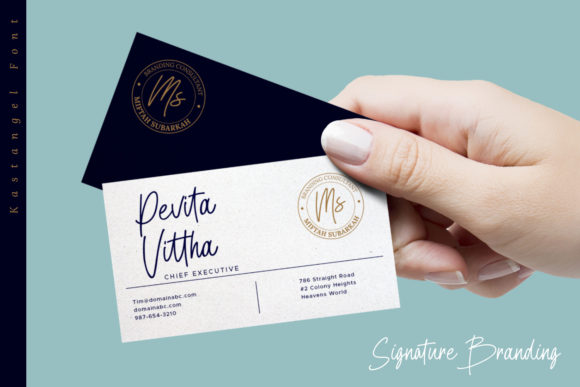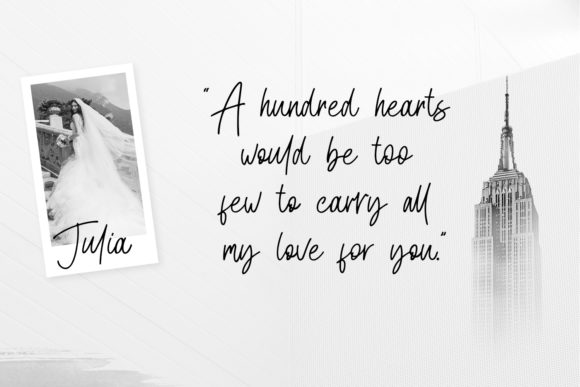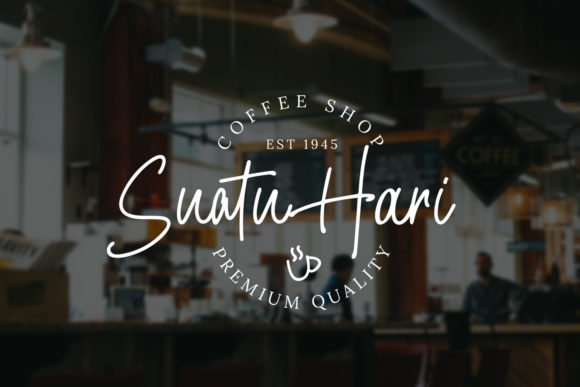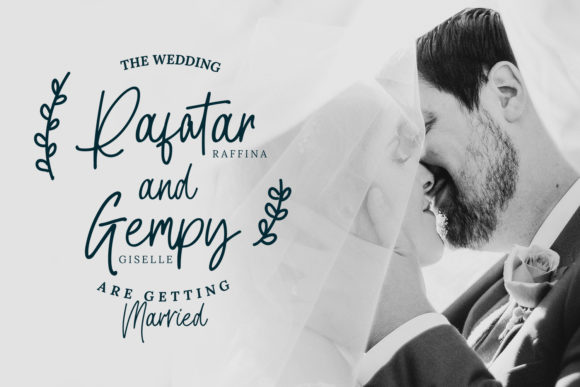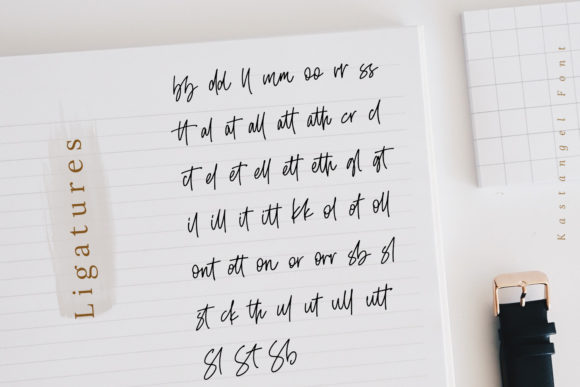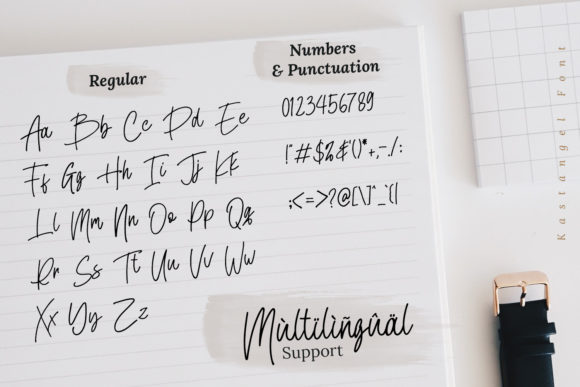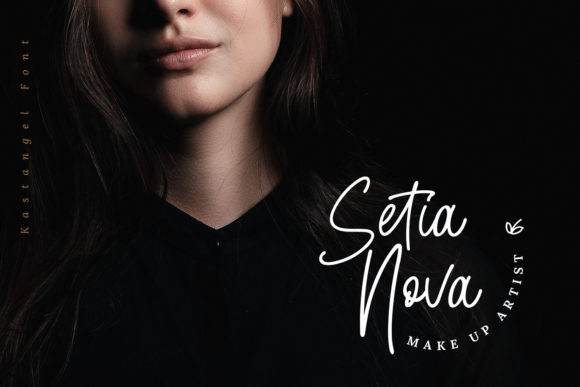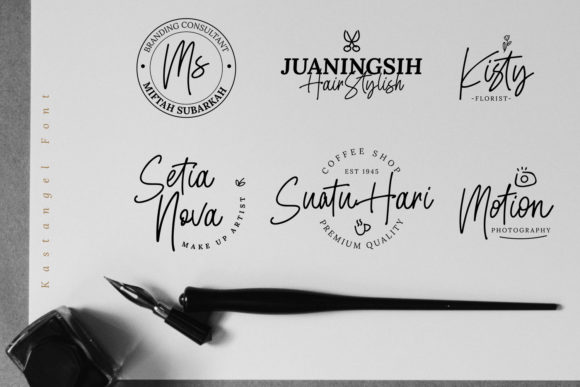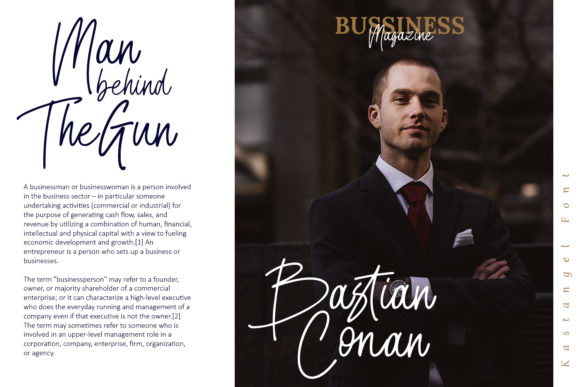
HomeScript FontsKastangel Font Script Fonts Kastangel Font FacebookXPinterestWhatsApp Kastangel Font Poster 2 Kastangel Font Poster 3 Kastangel Font Poster 4 Kastangel Font Poster 5 Kastangel Font Poster 6 Kastangel Font Poster 7 Kastangel Font Poster 8 Kastangel Font Poster 9 Kastangel Font Poster 10 About Kastangel Font Kastangel is a light and casual script with a timeless look. Use it to add a personal touch to any design idea! DOWNLOAD ON CREATIVE FABRICAThis font is sold and delivered by Creative Fabrica. Font Canyon may earn a commission if you buy through this link. People also explored Babylove Font Butterflies Font Milkylove Font Chatterbox Font Valentine Font Qainham Plandit Font Chicken Food Font Jackelyn Script Font Teodorra Font 329 0 TagsKastangel Font Previous articleSamantha FontNext articleExposedly Font LEAVE A REPLY Cancel reply Comment: Please enter your comment! Name:* Please enter your name here Email:* You have entered an incorrect email address! Please enter your email address here Website: Save my name, email, and website in this browser for the next time I comment. Personal Use Free Jellia Personal Use Free Read more about this font Cosmos Personal Use Free Read more about this font Trunk Shaped Personal Use Free Read more about this font Motherblood Personal Use Free Read more about this font BLOG Top 10 Handwritten Fonts That Elevate Your Designs Top 10 Handwritten Fonts That Will Elevate Your Designs Handwritten fonts bring a warm, personal touch to every creative project. Whether you're designing logos, invitations,... Fonts That Capture the Spirit of New York City Free Fonts Risk: Why Free Fonts Can Be Dangerous for Designers 5 Fonts That Will Dominate Design Trends in 2026